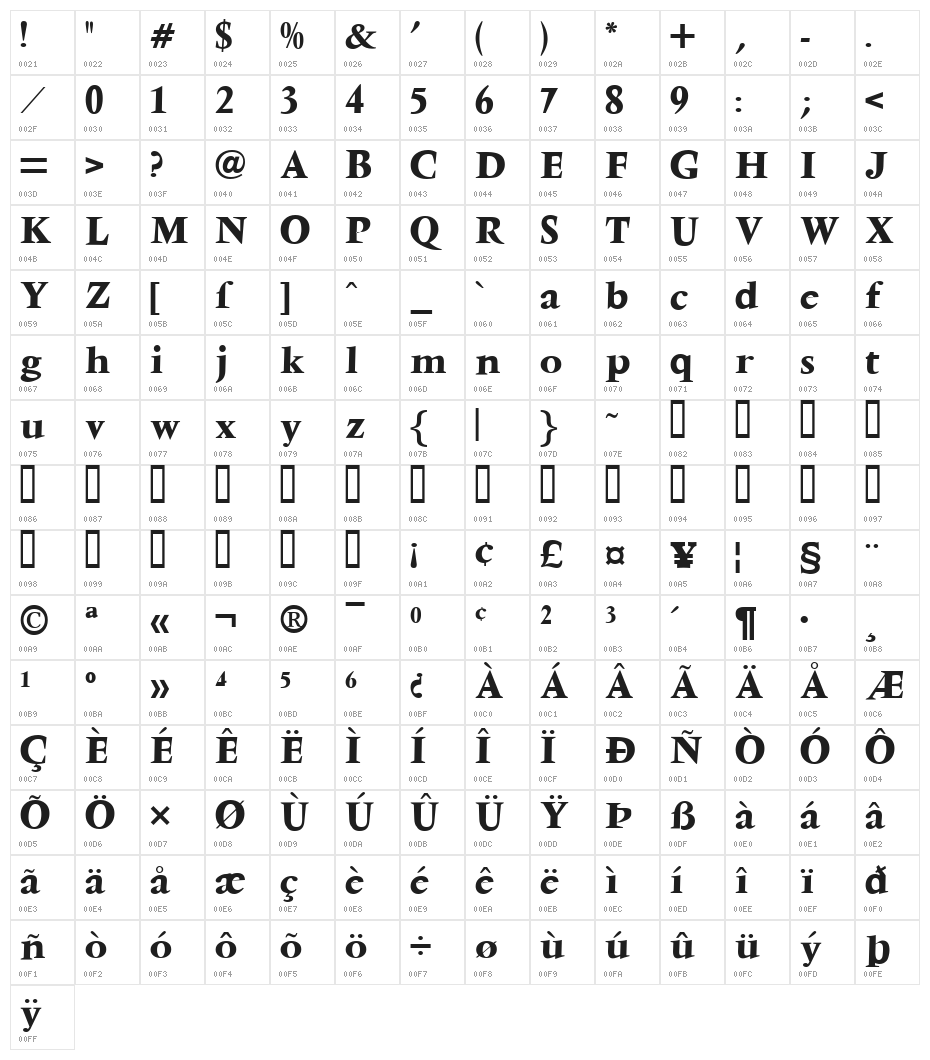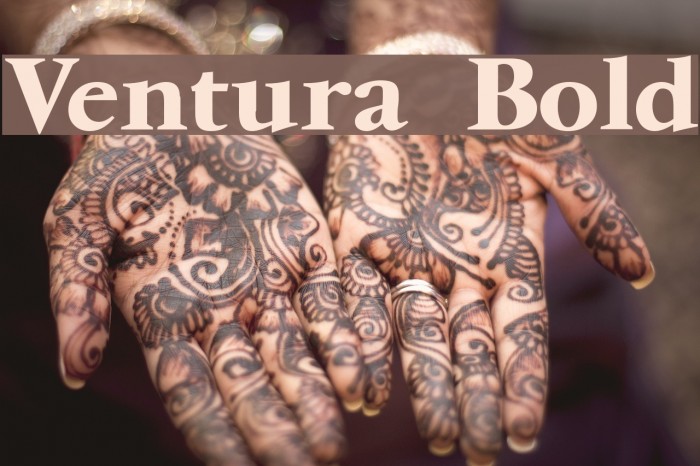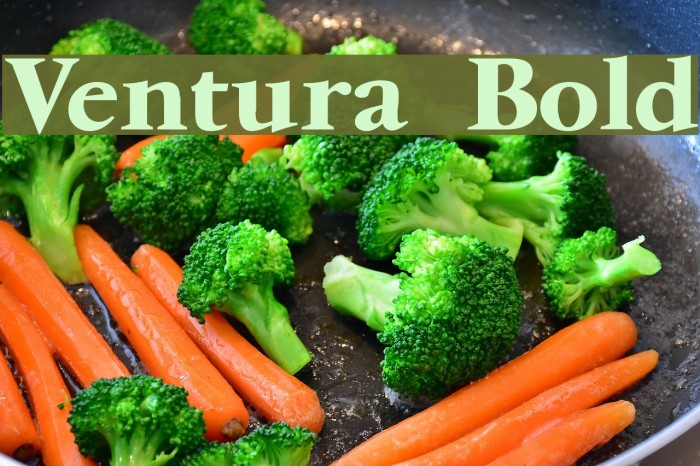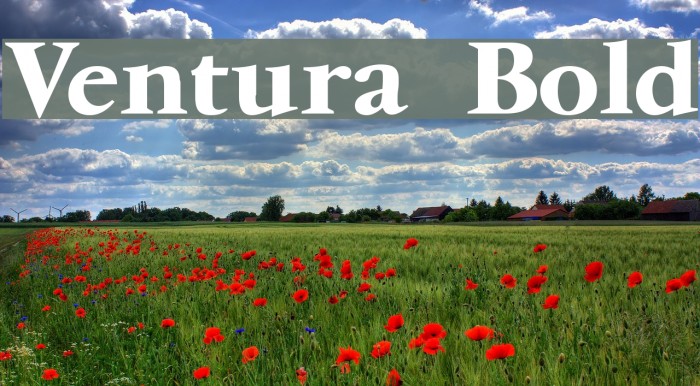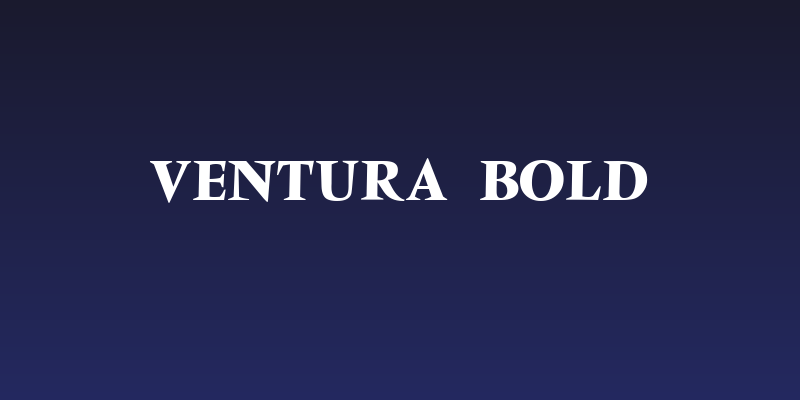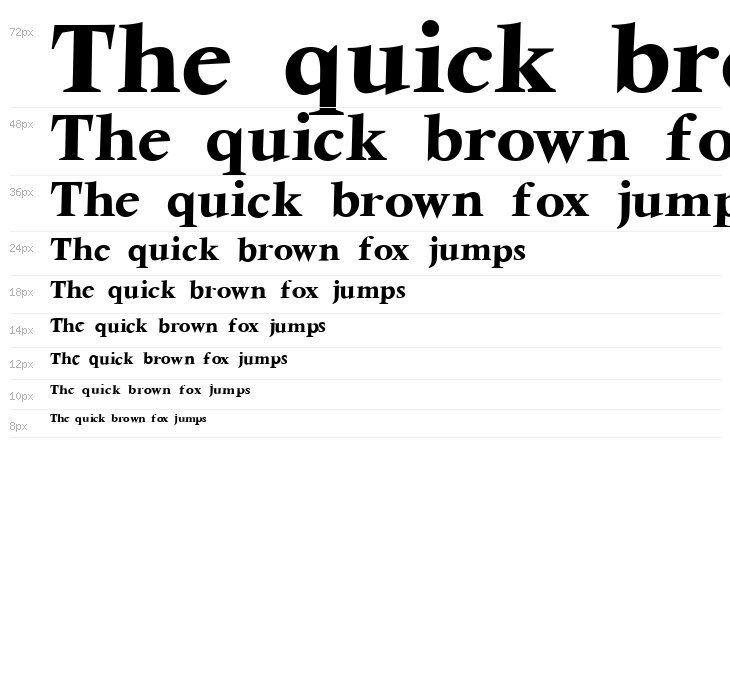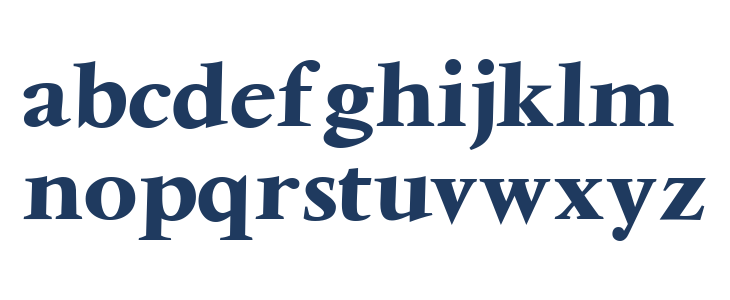
Ventura Bold Font
Ventura Bold Description
This font features a bold and authoritative presence, characterized by its strong and thick strokes. The serifs are pronounced, adding a classic touch to the overall design. The uppercase letters exhibit a commanding stature, while the lowercase letters maintain a consistent weight, ensuring readability. The numerals are robust and align well with the alphabetic characters, providing a cohesive look. Special characters are crafted with precision, maintaining the font's bold aesthetic. This font is ideal for making a strong visual impact, suitable for headlines and titles.
| Proposed Projects | Perfect for branding, advertising, book covers, and any project requiring a bold, classic look. |